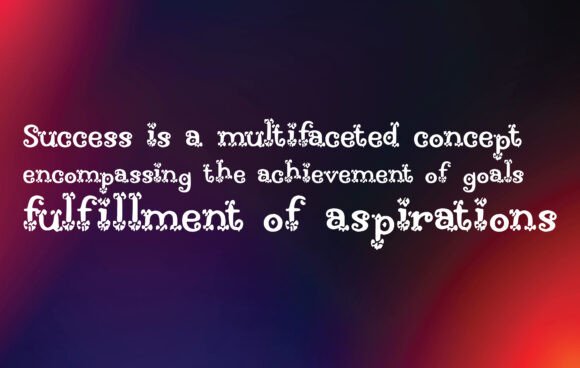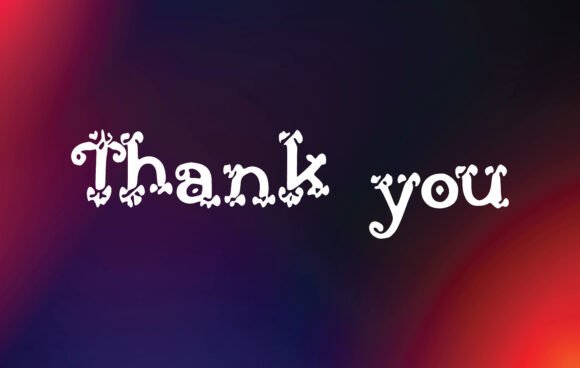
Discover the Beauty of Boaz Font: Elevate Your Designs with this Lovely Handwritten Font
Are you a designer or crafter looking for a unique and captivating font to take your creative projects to the next level? Look no further than Boaz Font, a stunning handwritten font that is sure to impress. With its elegant and beautiful design, Boaz Font has the potential to elevate your creative ideas to new heights, making it the perfect choice for a wide range of design applications.
What Makes Boaz Font So Special?
Boaz Font is a carefully crafted handwritten font that boasts a distinctive and charming style. Its unique character set and beautiful letterforms make it an excellent choice for designers and crafters who want to add a personal touch to their work. Whether you’re creating eye-catching logos, branding materials, or inspirational quotes, Boaz Font is the perfect tool to help you achieve your creative vision.
The Perfect Choice for Designers and Crafters
Boaz Font is an incredibly versatile font that can be used in a variety of design applications. Its elegant and sophisticated design makes it an excellent choice for:
- Logos and Branding: Create stunning logos and branding materials that showcase your unique style and personality.
- Quotes and Inspirational Texts: Add a touch of elegance and sophistication to your quotes and inspirational texts.
- Stationery and Invitations: Create beautiful stationery and invitations that are sure to impress.
- Digital and Print Media: Use Boaz Font in a variety of digital and print media, including brochures, flyers, and social media graphics.
Why Choose Boaz Font?
There are many reasons why Boaz Font stands out from the crowd. Here are just a few:
- Unique and Handwritten Design: Boaz Font boasts a distinctive and charming handwritten design that is sure to capture attention.
- Elegant and Sophisticated: The font’s elegant and sophisticated design makes it perfect for a wide range of design applications.
- Easy to Read: Boaz Font is incredibly easy to read, making it perfect for body text and captions.
- Highly Versatile: The font is highly versatile and can be used in a variety of design applications.
Tips for Using Boaz Font
To get the most out of Boaz Font, here are a few tips to keep in mind:
- Use it Sparingly: Boaz Font is a statement font, so use it sparingly to make a maximum impact.
- Pair it with Other Fonts: Experiment with pairing Boaz Font with other fonts to create a unique and eye-catching design.
- Adjust the Size and Color: Adjust the size and color of Boaz Font to suit your design needs.
In conclusion, Boaz Font is a stunning handwritten font that is sure to elevate your creative projects to new heights. With its elegant and beautiful design, Boaz Font is the perfect choice for designers and crafters who want to add a personal touch to their work. Whether you’re creating logos, branding materials, or inspirational quotes, Boaz Font is the perfect tool to help you achieve your creative vision.